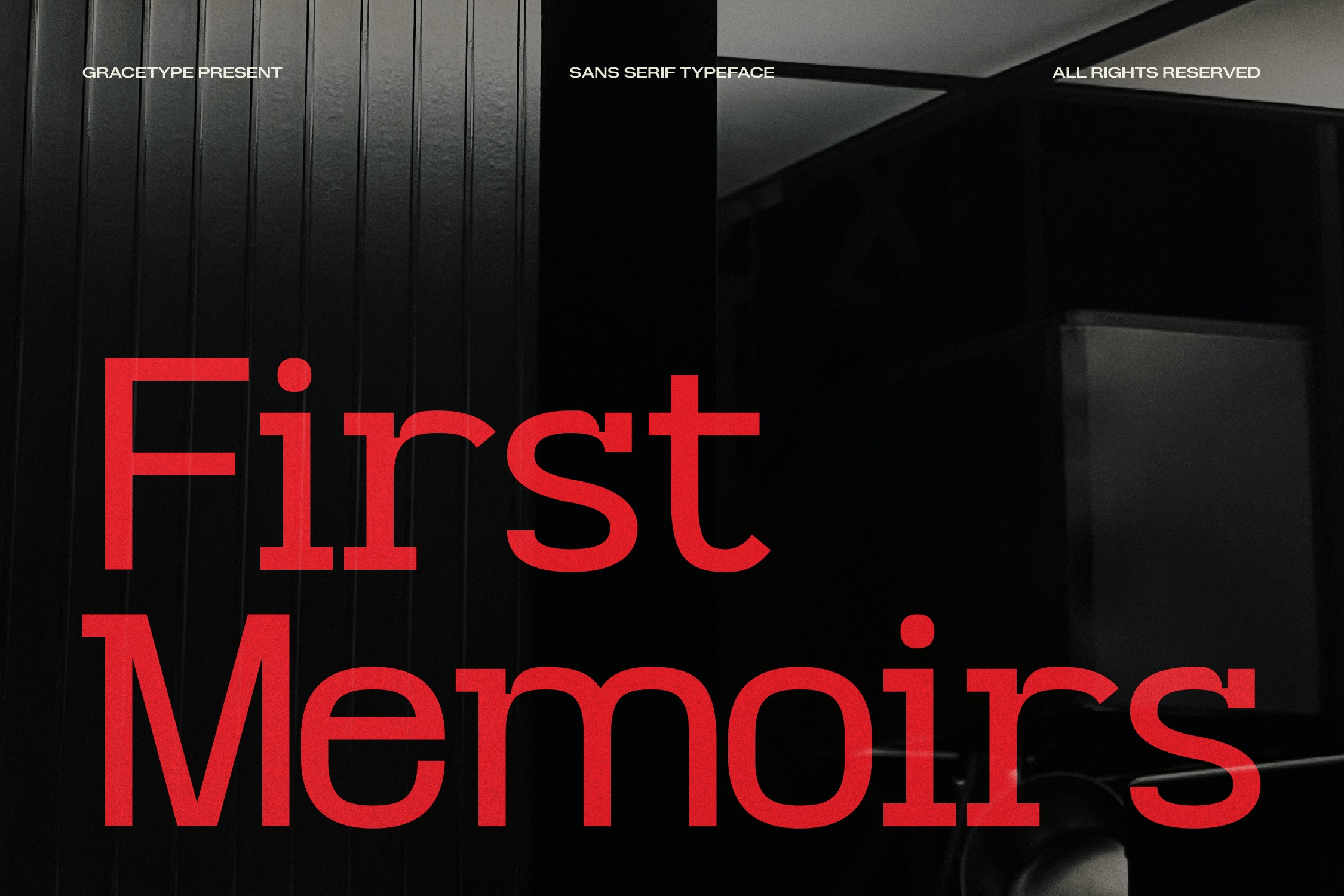
First Memoirs – Geometric Sans Serif Font
First Memoirs – Geometric Sans Serif Font is a premium-quality font developed to enhance your work with a polished, modern, and visually elevated look. First Memoirs | Sans Serif Typeface, from Gracetypestudio, suitable for any projects such as: logos, branding projects, homeware designs, product packaging, mugs, quotes, posters, shopping bags, t-shirts, book covers, name card, invitation cards, greeting cards, label, photography, watermark, special events, and all your other lovely projects that need a sans taste.